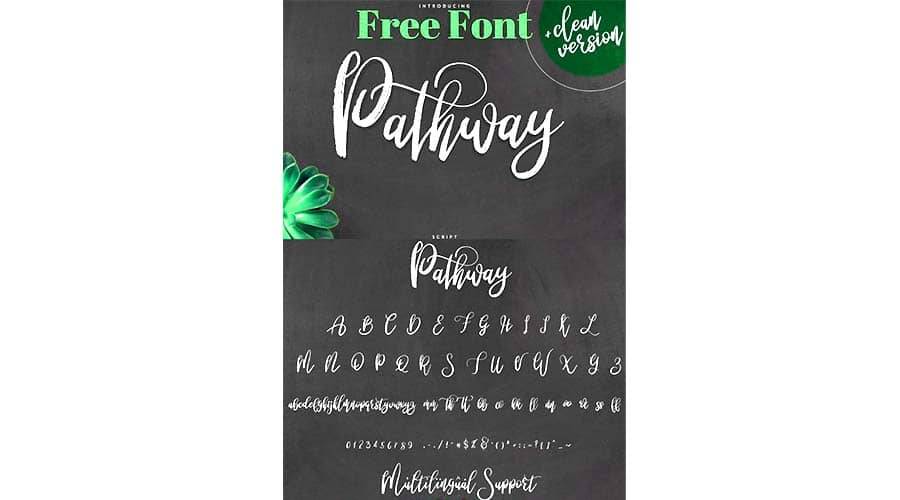
Pathway Script Font
Introducing Pathway Script Font! Pathway invented and assigned through VPcreativeshop on March 28, 2019.
Pathway Script Font is a new brush handwritten font with a modern and elegant feel. This font is the best free typeface set available. It’s a playful typeface that comes in two versions and supports multiple languages. It’s a highly versatile typeface that performs well in both large and tiny sizes. The font comes under Script and Brush fonts category. Few related fonts are Chairmate Brush Calligraphy Font, Edline Modern Calligraphy Script Font, The Moyanka Calligraphy Font, Sendayu Light Calligraphy Font etc. The font is suitable for use with window, Mac and Android. This font is available in TrueType and OpenType. The TrueType format works with multilingual support.
The pathway is appropriate for branding initiatives, homeware designs, packaging material, journal headlines, and even as an elegant word overlay on any backdrop image. The font is widely used in the creation of numerous wallpapers.